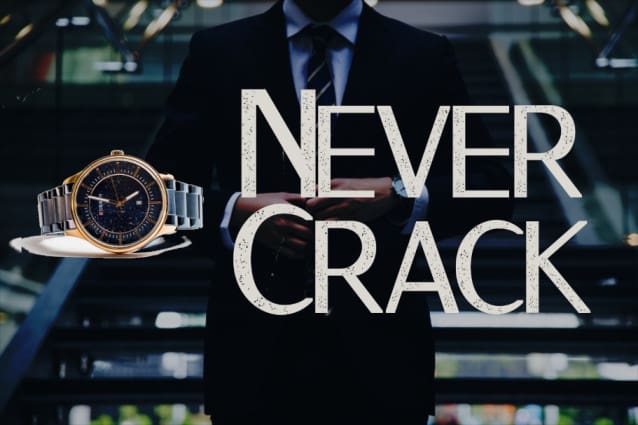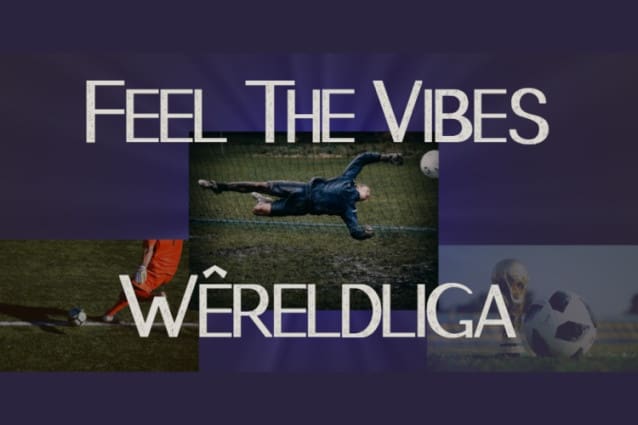
Ganzhou Font
Ganzhou Font is a great geometric sans with texture font with a natural stamp texture. This font is the perfect fit for all of your logos, branding, social media, and many others